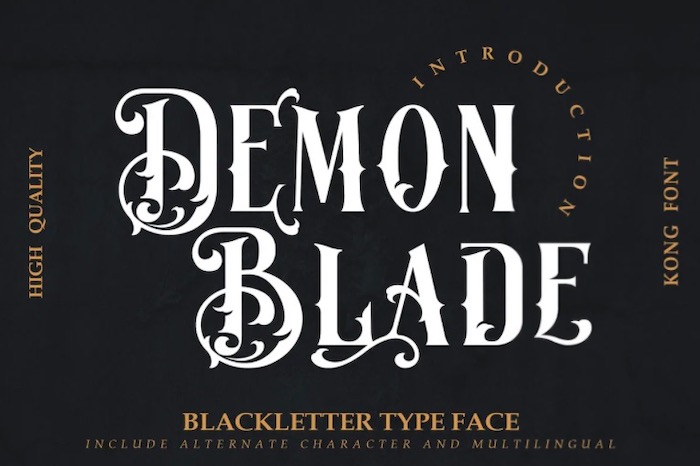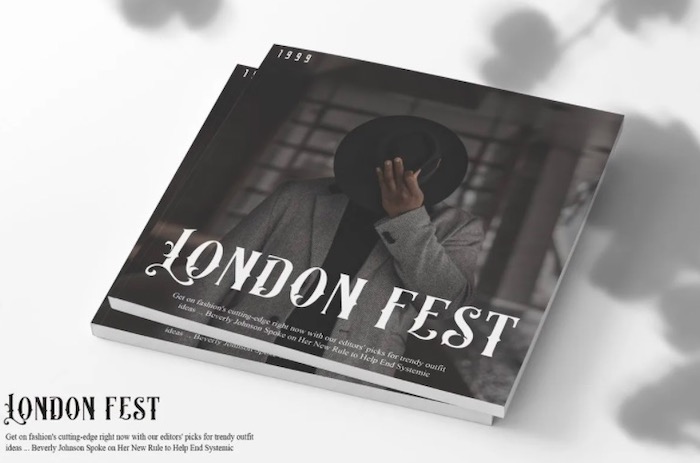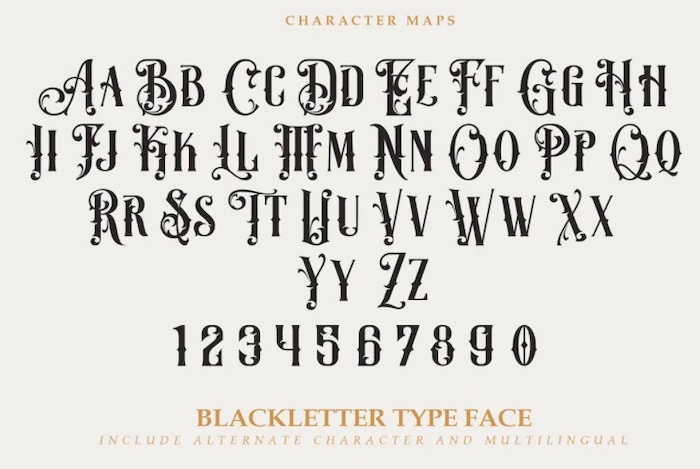
Demon Blade font, it’s a fresh Blackletter typeface that is a collection of fancy & cool letters along with numbers. Demon font is also perfect for your designs such as T-Shirt/Apparel, Branding Design, Digital Lettering Arts, Magazine, Advertising Design, branding designs, and more.
Demon Blade Blackletter Font
Font family: Demon Blade Font
Designer Name: Kong Font